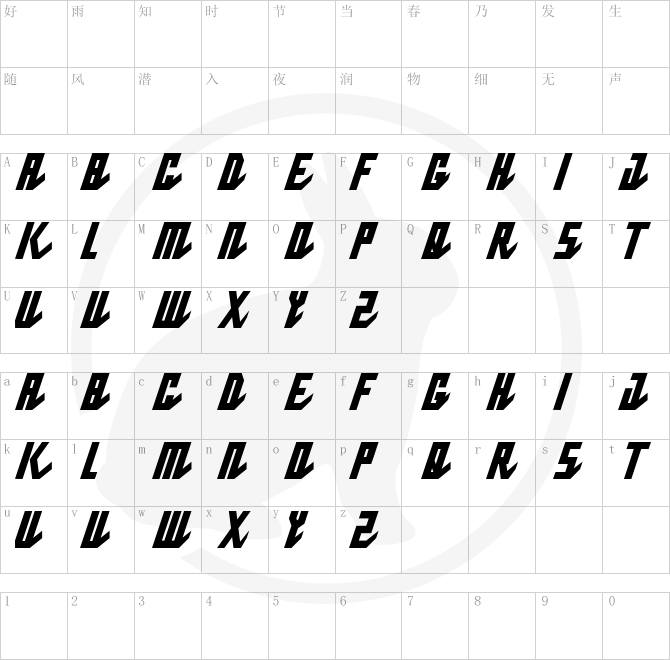
- Font Name:Pablo Narrow
Pablo-Normal-Narrow-Italic.ttf is a very beautiful artistic font, Pablo-Normal-Narrow-Italic.ttf is widely used in the design and printing of various books and pictures,Pablo-Normal-Narrow-Italic.ttf has a strong visual impact,Pablo-Normal-Narrow-Italic.ttf is a commonly used font in newspapers, magazines and books, and is used in posters, e-commerce Poster design, store design, logo design, font design and other fields.Pablo-Normal-Narrow-Italic.